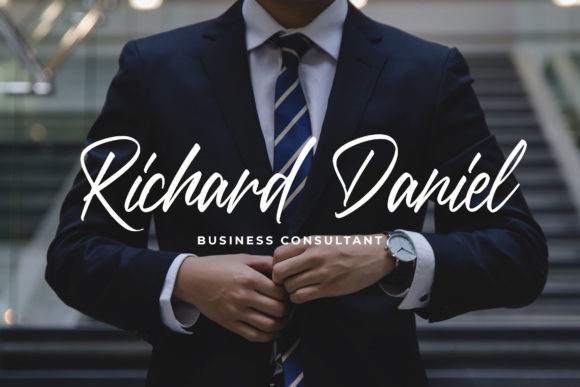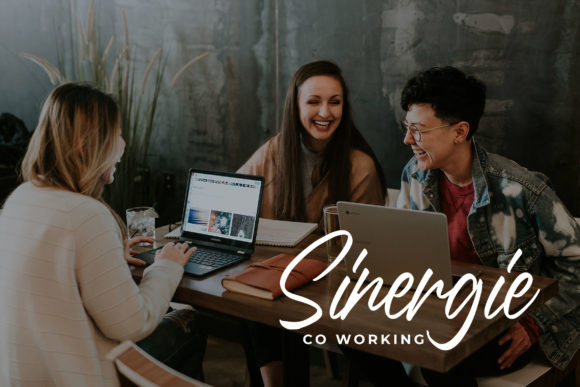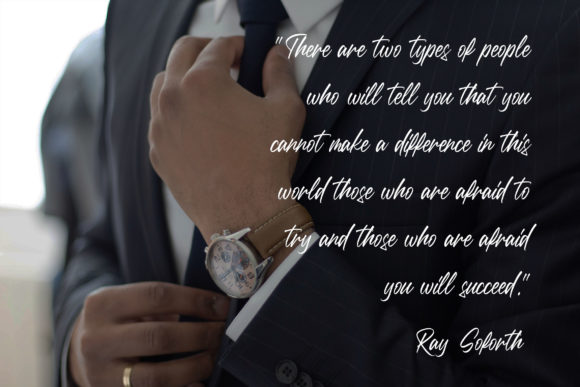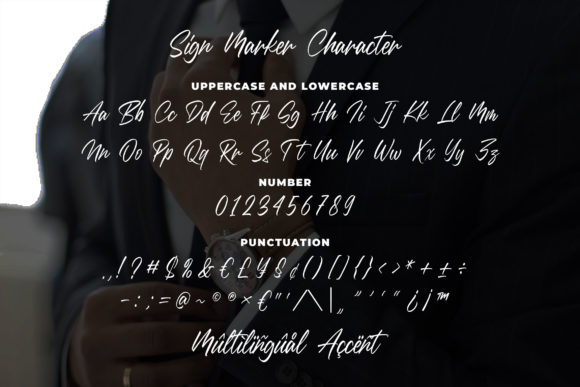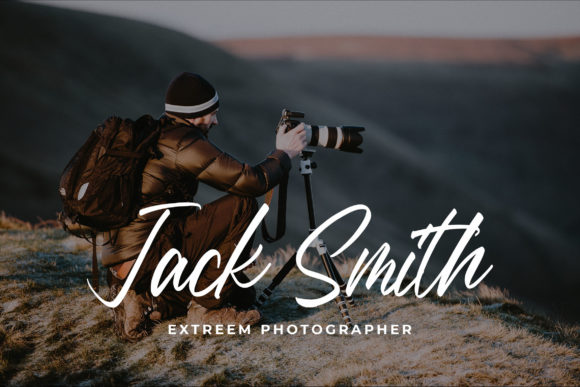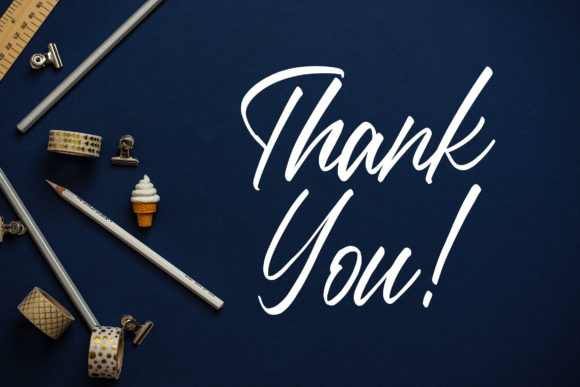
Introduction to Sign Marker Font
Sign Marker is a sweet and charming script font with a unique style.
Get inspired by its authentic look .
Key Features of Sign Marker Font